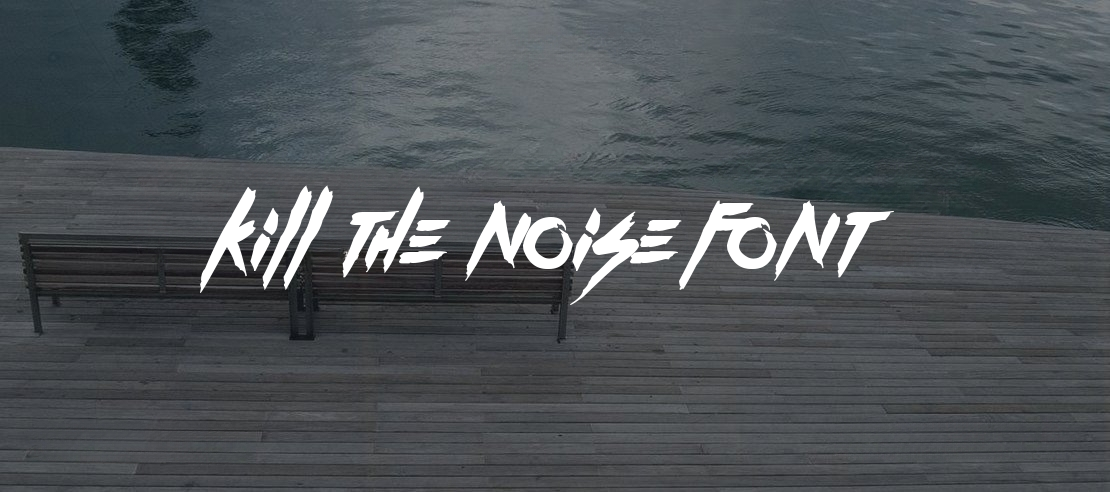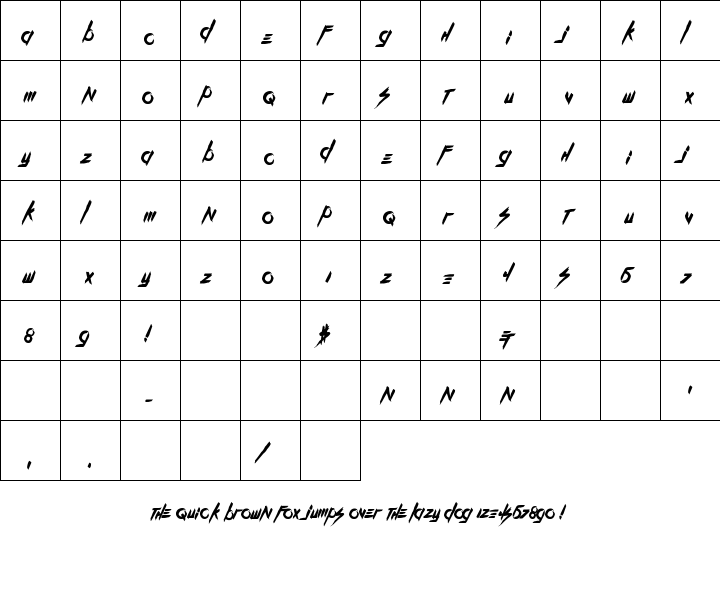
Are you interested in using a stylish and funny typeface in your design project? I shall introduce to you an interesting and stylish typeface in this post. Kill The Noise Font is a brush typeface with a unique noisy texture.
Kill The Noise typeface has a complete set of 97 characters including numbers, symbols, and punctuations. This typeface also contains a set of 38 glyphs. It also supports multiple languages. This typeface is identical to the brushed font.
The font is perfect for headlines, logos, posters, Fashion designs, shop names, product packaging, brochures, banners, magazine covers, and more. So if you’re looking for a new way to add some personality to your projects, then be sure to check out Kill The Noise typeface.
Designer of Kill The Noise Font
This stylish and amazing typeface is designed by British typeface designer Allison James for the foundry Chequered Ink in 2013.
This font style is created with a unique and regular style. This single attractive style is a combination of characteristics, including capital alphabets, small alphabets, punctuations, glyphs, digits, symbols, special characters, and a large number of language support.
View of Kill The Noise Font
| Name | Kill The Noise Font |
| Style | Brush |
| Designer | Allison James |
| Foundry | Chequered Ink |
Is Kill The Noise typeface a good style?
Yes, Kill The Noise typeface is a good font because it is a brush typeface with a unique noisy texture. It is perfect for headlines, titles, and posters.